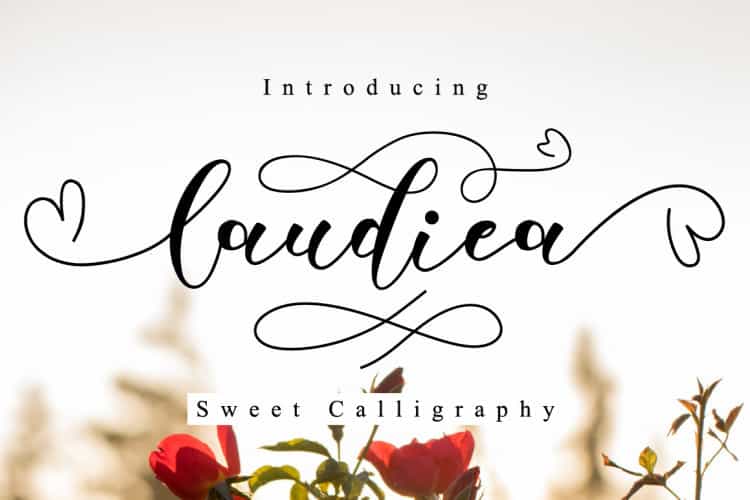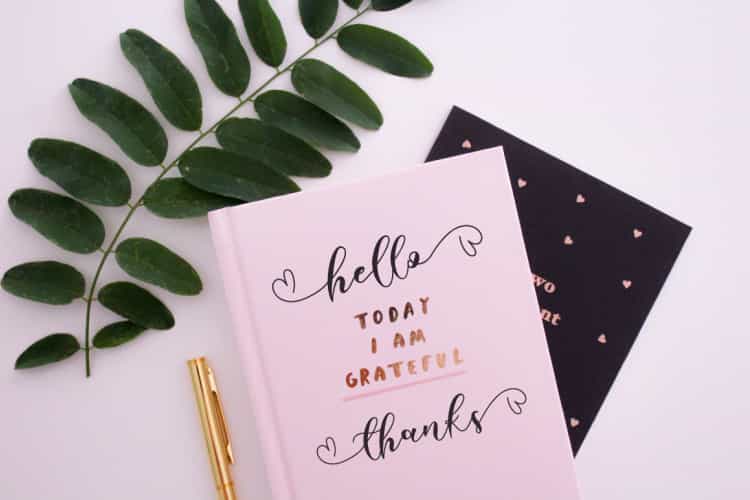
Introducing Laudiea Font. It’s designed and shared by NissaStudio. Laudiea Script Font – a new modern & stylish script with a handwritten and script style make this font looks great and beauty. It’s still comfortable to read and elegant. Use this font for your new project In communication design, its usefulness is flexible!